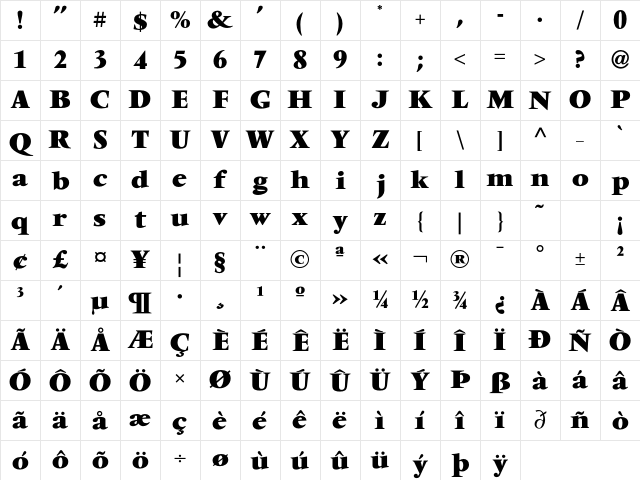
VendomeICG Black
Design Context for VendomeICG
VendomeICG is a composed and adaptable typeface that performs quietly and consistently across a wide range of design contexts.